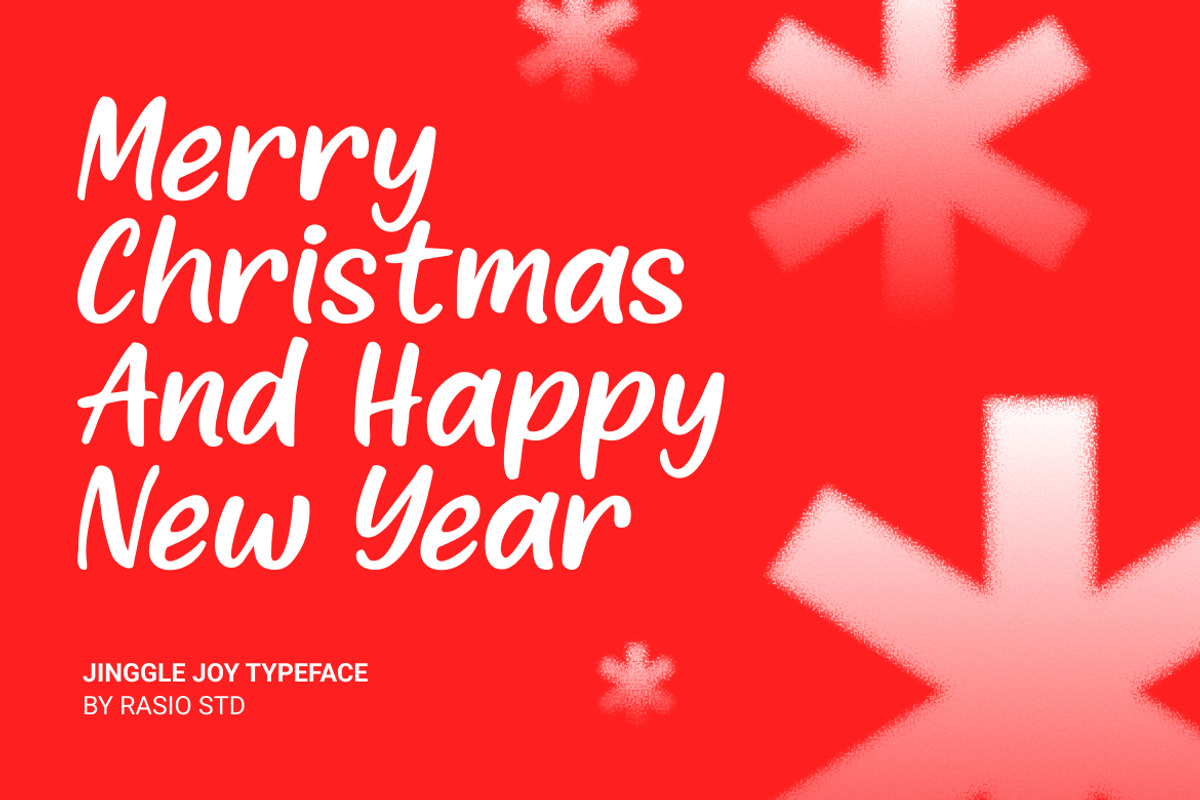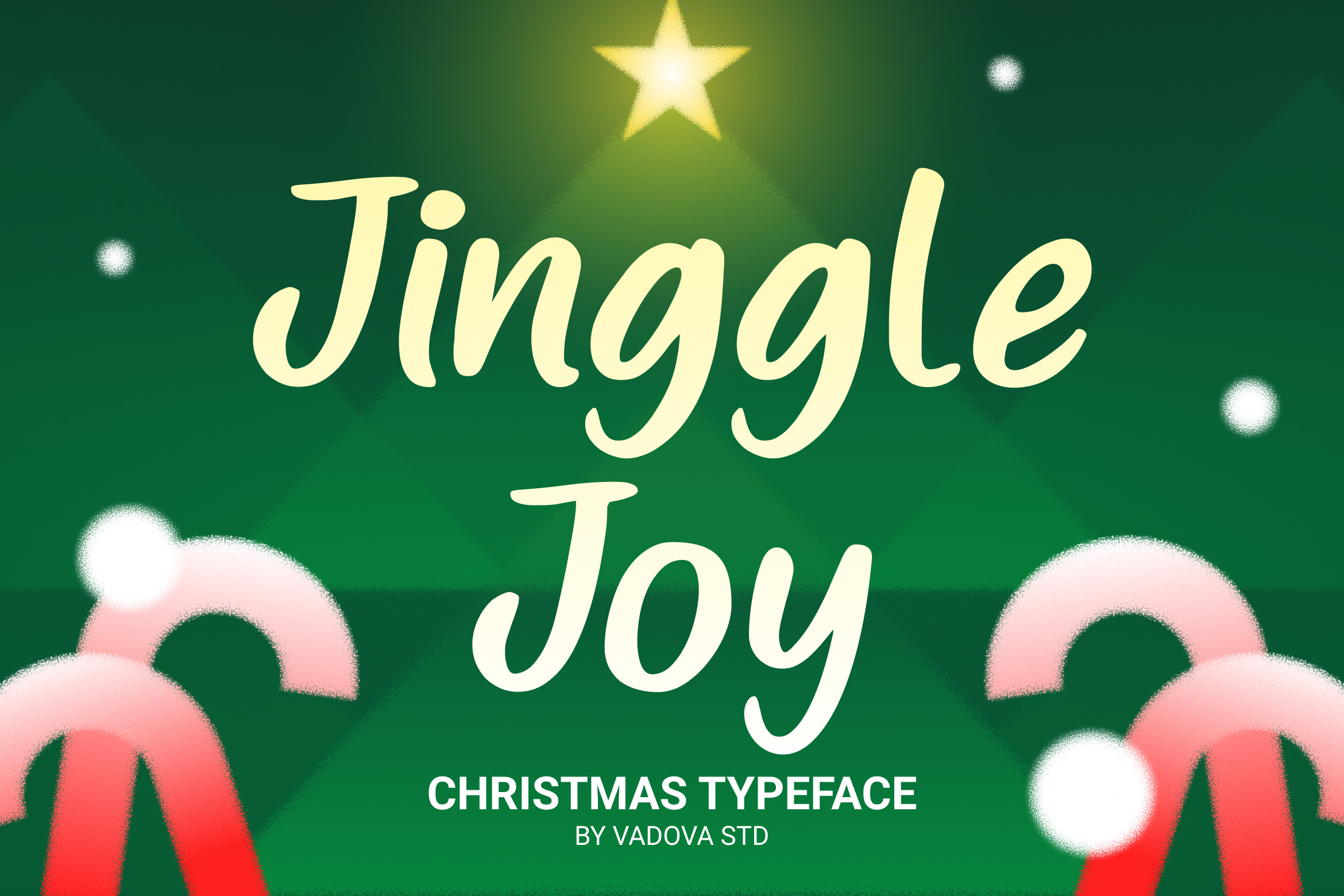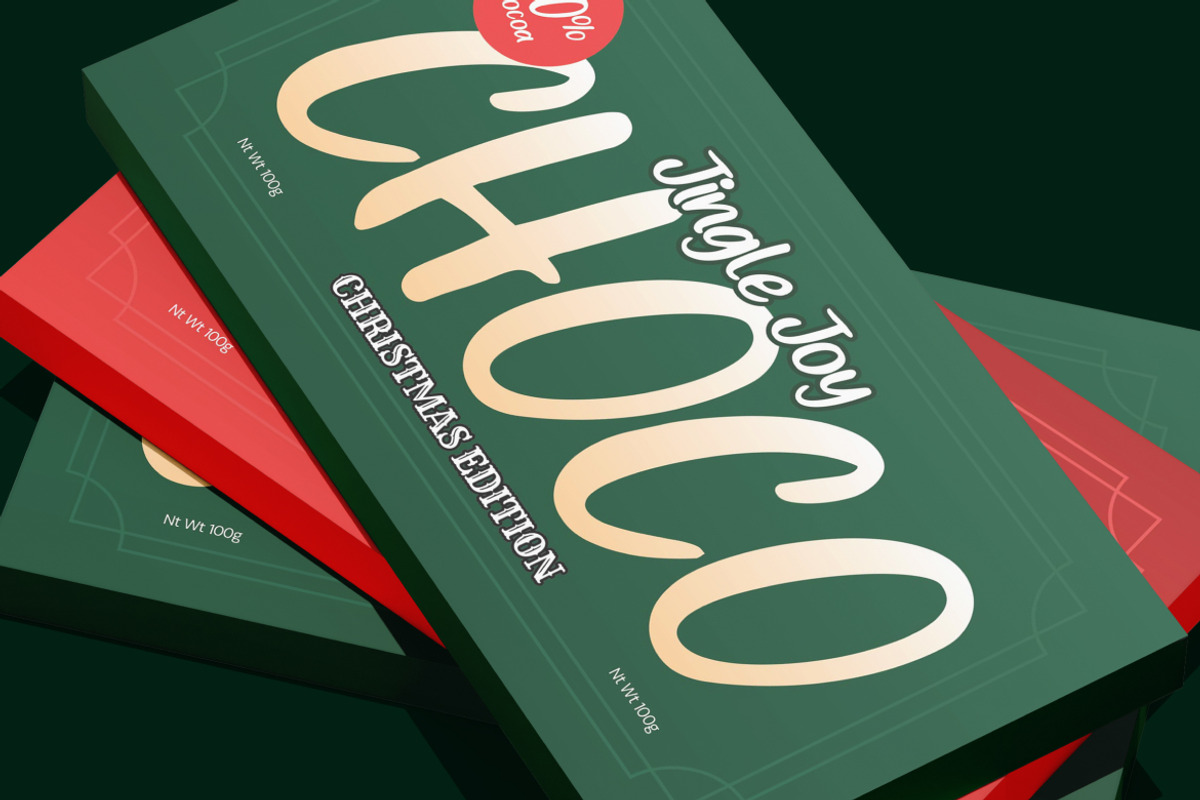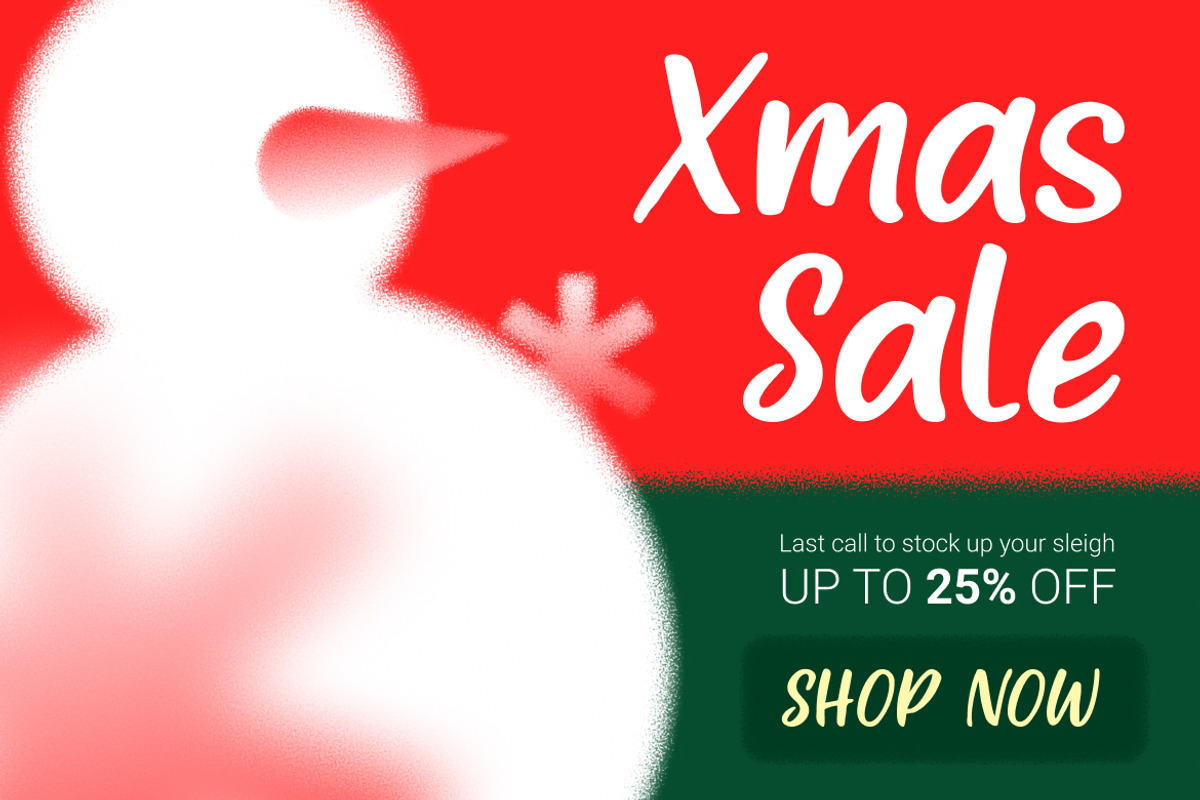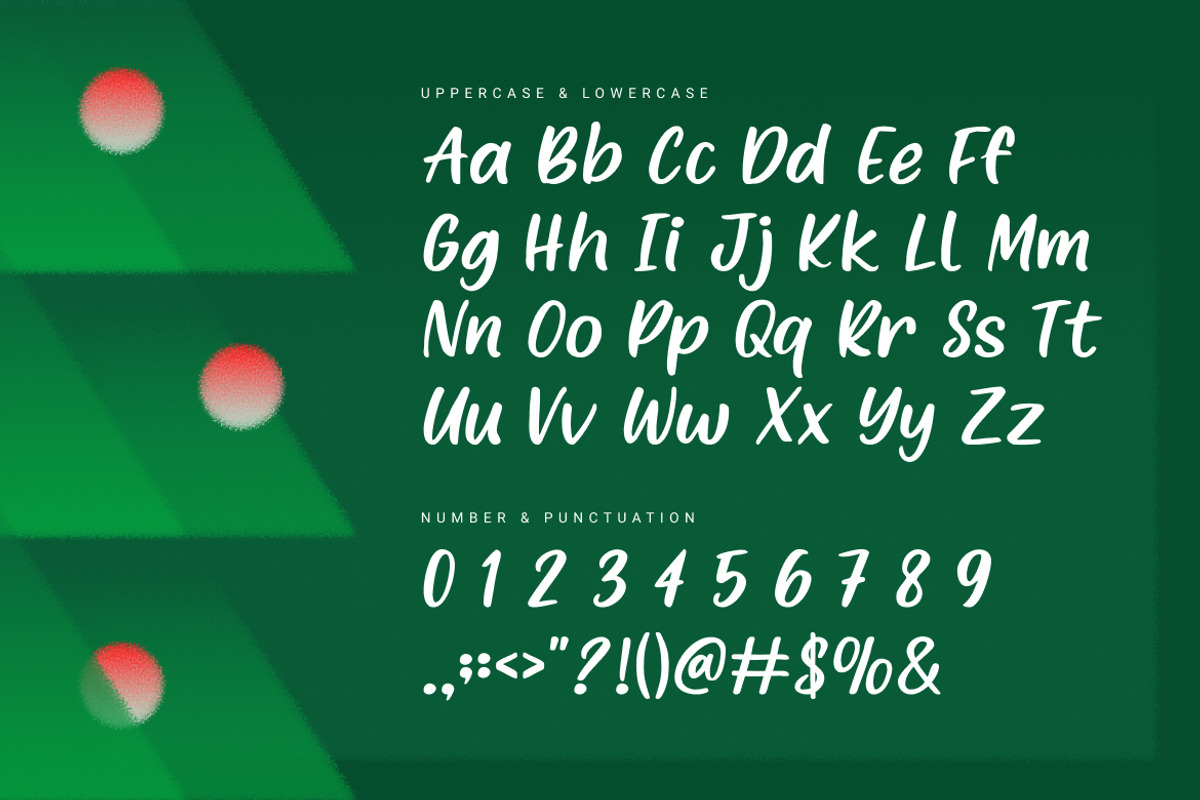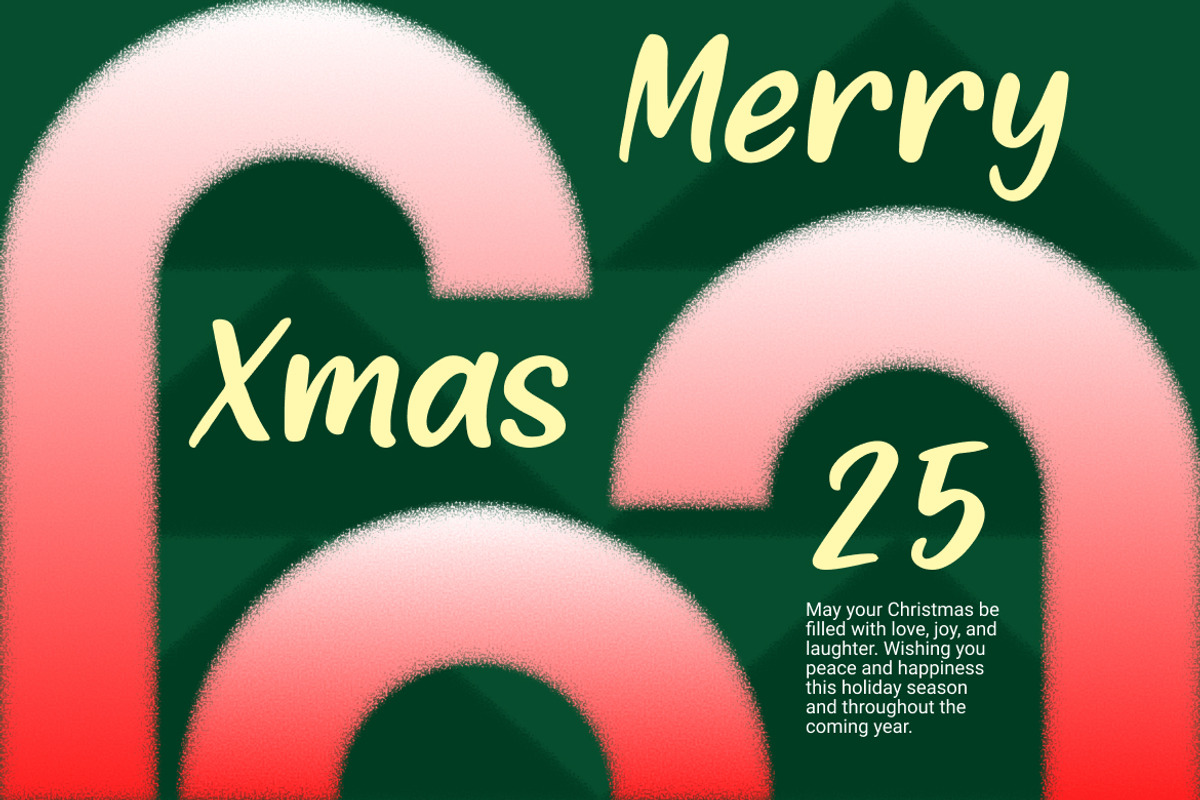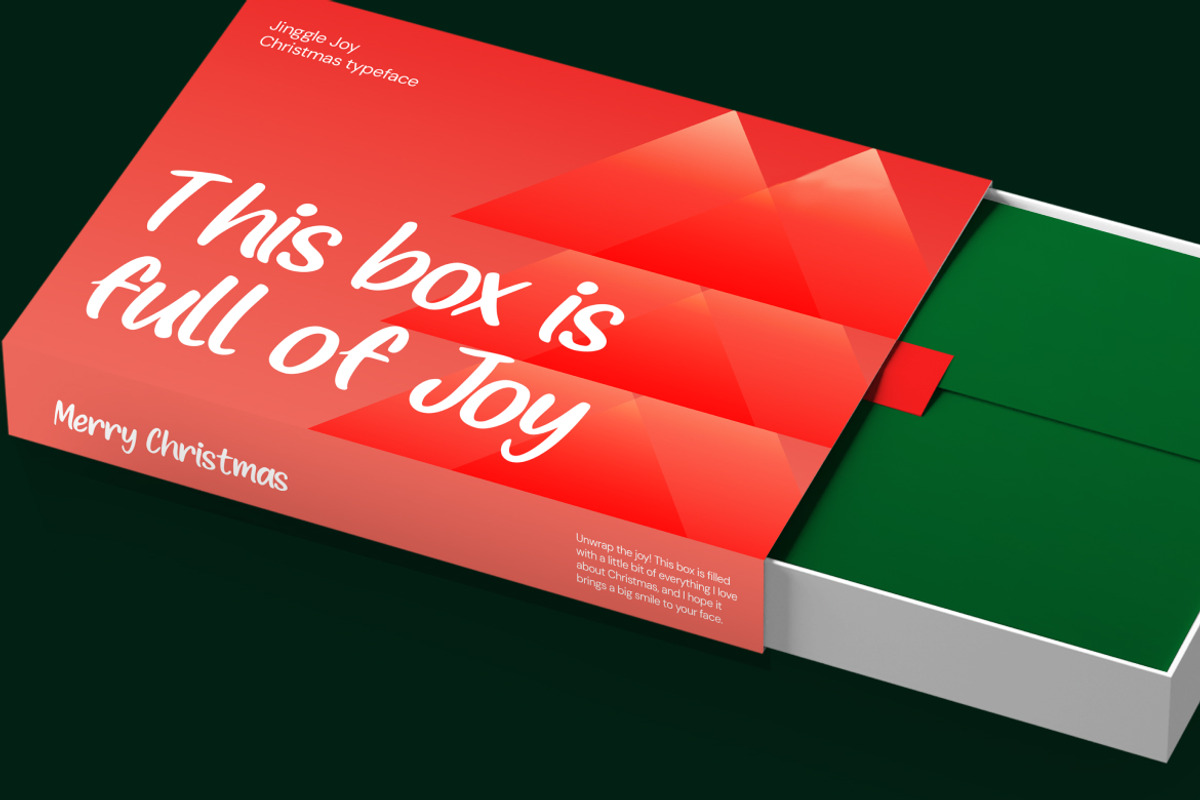
Jinggle Joy Christmas Script Font
Jinggle Joy is a handwritten script typeface infused with warmth, wonder, and the unmistakable spirit of Christmas. With its rounded, joyful strokes and casual brush-style flow, this font captures the magic of holiday cheer perfect for cozy greeting cards, festive posters, social media designs, product packaging, and cheerful invitations.
Each character feels like a handwritten note from a loved one playful, heartfelt, and full of seasonal delight. Jinggle Joy blends legibility with charm, making it an excellent choice for both headlines and supporting text during the holidays.
Crafted for creators who want their designs to radiate joy and friendliness, this typeface comes complete with upper and lowercase characters, punctuation, numbers, and multilingual support. Whether you're designing festive signage, advent calendars, or merry merchandise, Jinggle Joy delivers personality in every letter.
- Handwritten script style with smooth brush strokes
- Rounded characters that convey warmth and cheer
- Complete uppercase & lowercase sets
- Great for festive text overlays and branding
Best Uses for Jinggle Joy:
- Holiday greeting cards & festive invitations
- Christmas posters, banners, and promotional graphics
- Seasonal branding, packaging, and product labels
- Social media posts for holiday campaigns
- Stickers, tags, and printable crafts
- Children’s books and playful illustrations
- DIY Christmas projects & digital overlays
- Multilingual support for global audiences
- Perfect for holiday social media, mugs, shirts, greeting cards, and posters
- Combines friendliness with readability
- Works well in both large headlines and small supportive text
Spread joy with every word Jinggle Joy makes your Christmas designs unforgettable.